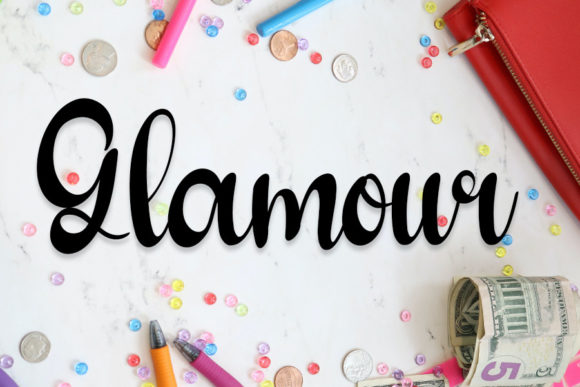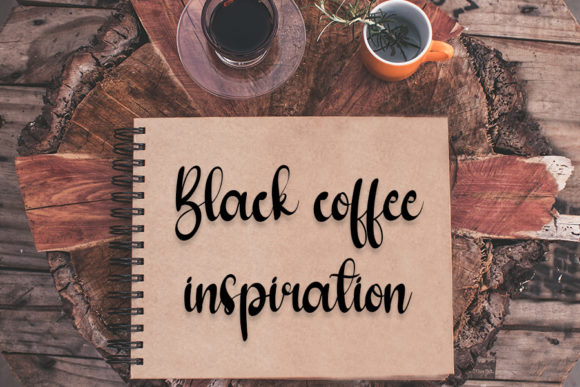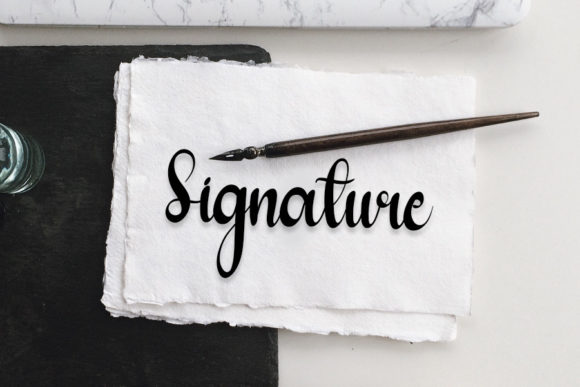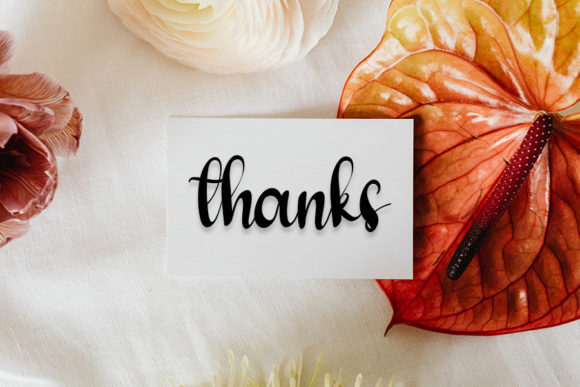
Introduction to Shulton Font
You know that moment when you’re working on a creative project and you’re just about to nail the design, but something’s missing? Maybe it’s the perfect font to elevate your message and give it that extra oomph. For designers, finding the right typography can be a game-changer.
That’s where Shulton Font comes in – a stylish handwritten font that exudes a contemporary atmosphere and impeccable form, inspired by timeless classic calligraphy. With its versatility, it’s sure to look outstanding in a wide range of contexts, from branding and advertising to digital design and even print materials.
Key Features of Shulton Font
- Unique, hand-drawn design with intricate details and elegant flair
- Perfect for use in logos, branding materials, and print designs
Honest Review: Shulton Font
As a designer, I’m always on the lookout for high-quality design resources that can elevate my creative project. Recently, I stumbled upon the Shulton Font, and I’m excited to share my honest review with you.
Here are some of the things that work well with the Shulton Font:
- ✨ Elegant and modern design: The Shulton Font has a sleek and sophisticated look that’s perfect for branding and marketing materials.
- ✨ High-quality graphics: The font’s high-resolution graphics ensure that it looks great on any screen, from web to print.
- ⚠️ Limited customization options: While the Shulton Font looks great out of the box, it’s not particularly easy to customize or modify.
Overall, I think the Shulton Font is a solid choice for designers who need a high-quality, modern font for their creative project. Just be aware of the limitations mentioned above, and you’ll be good to go.
Introduction to Shulton Font
Tips for Getting the Most Out of Shulton Font
To get the most out of Shulton Font, experiment with different font sizes, colors, and combinations. Use it to create a consistent brand identity or add a pop of style to your designs. Remember to pair it with a high-quality image or background to enhance its impact.
Common Use Cases for Shulton Font
Shulton Font is ideal for various creative projects, including graphic design, branding, and digital marketing. Use it to create eye-catching social media graphics, posters, or brochures. Its versatility makes it a great choice for designers of all levels.